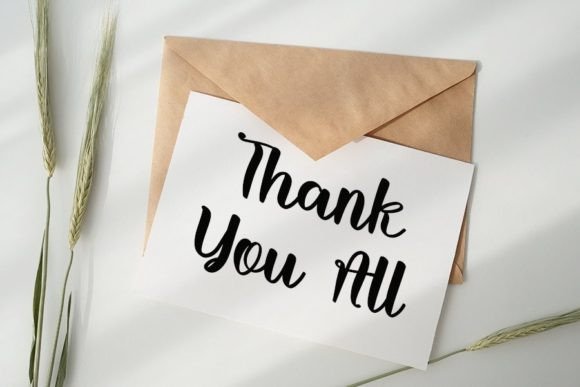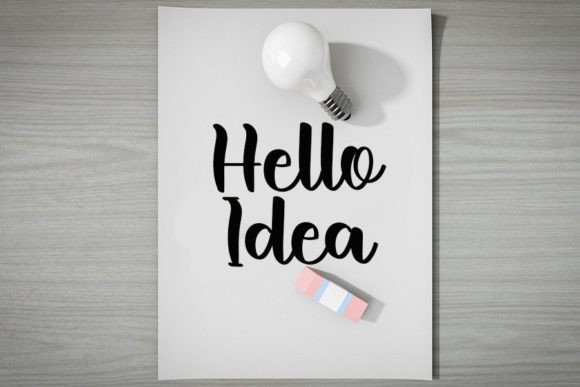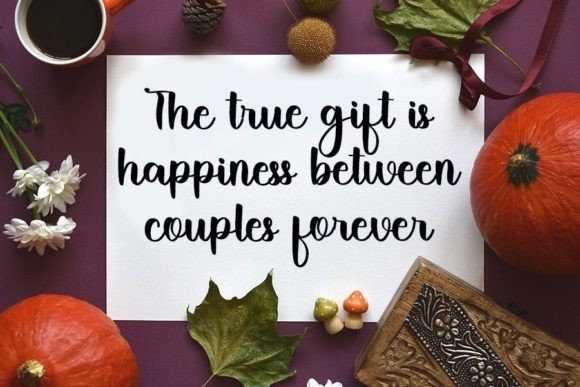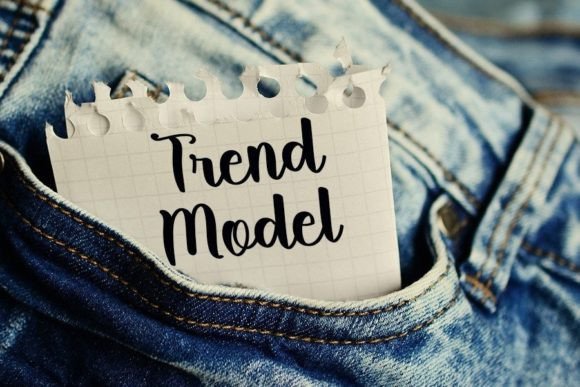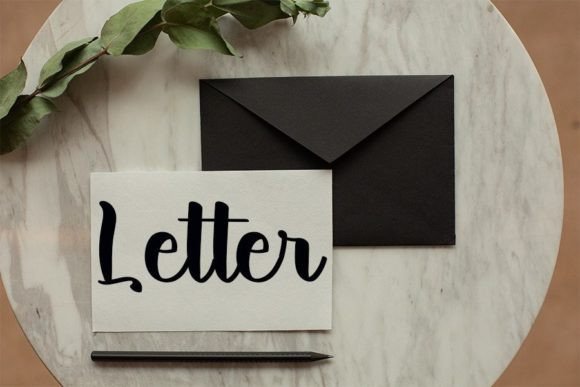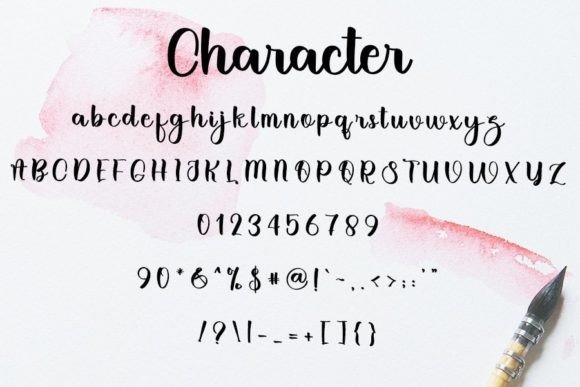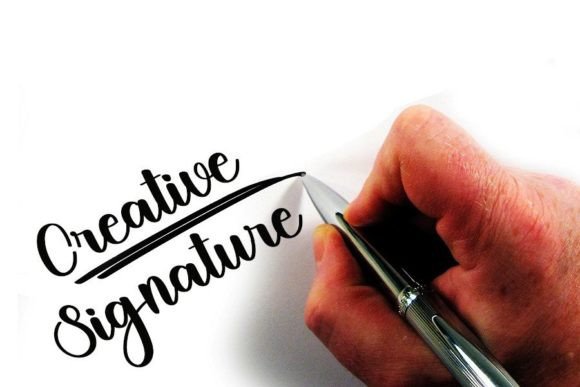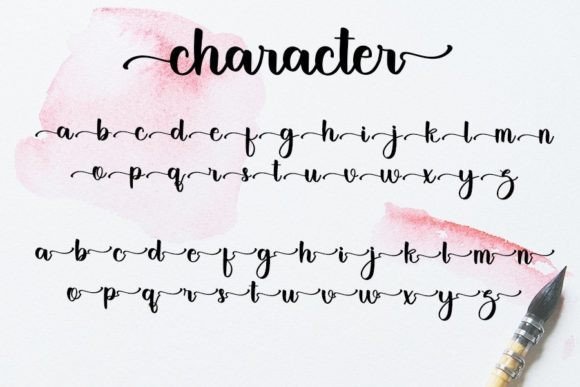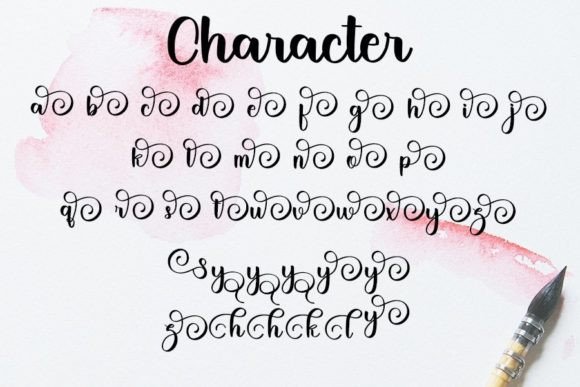
Honey Font
About Honey Font
“Honey” is a stunning and refined script font that exudes beauty and sophistication. With its classy, elegant, and modern appearance, this font is a perfect choice for a wide array of design projects. Its versatility makes it suitable for logos, branding, invitations, stationery, wedding designs, social media posts, and much more.
The font’s graceful and flowing characters bring a touch of elegance to any design application. Its timeless style adds a sense of refinement and sophistication, making it ideal for projects that require a high level of visual appeal. Whether you’re creating a logo for a luxury brand, designing elegant wedding invitations, or crafting engaging social media posts, “Honey” enhances the overall aesthetics of your projects.
One of the standout features of “Honey” is its PUA encoding. This encoding style grants you easy access to a wide range of amazing glyphs and ligatures, allowing you to customize and personalize your designs effortlessly. With access to these additional characters, you can create unique and visually appealing typography compositions, adding an extra layer of creativity to your work.
Incorporating “Honey” into your creative projects empowers you to infuse them with elegance and sophistication. Its refined style and access to diverse glyphs and ligatures make it a valuable asset for designers seeking a font that exudes beauty and versatility. Embrace the font’s elegance and let it enhance your logos, invitations, social media posts, and various other design works, ensuring they radiate a sense of timeless beauty and class.